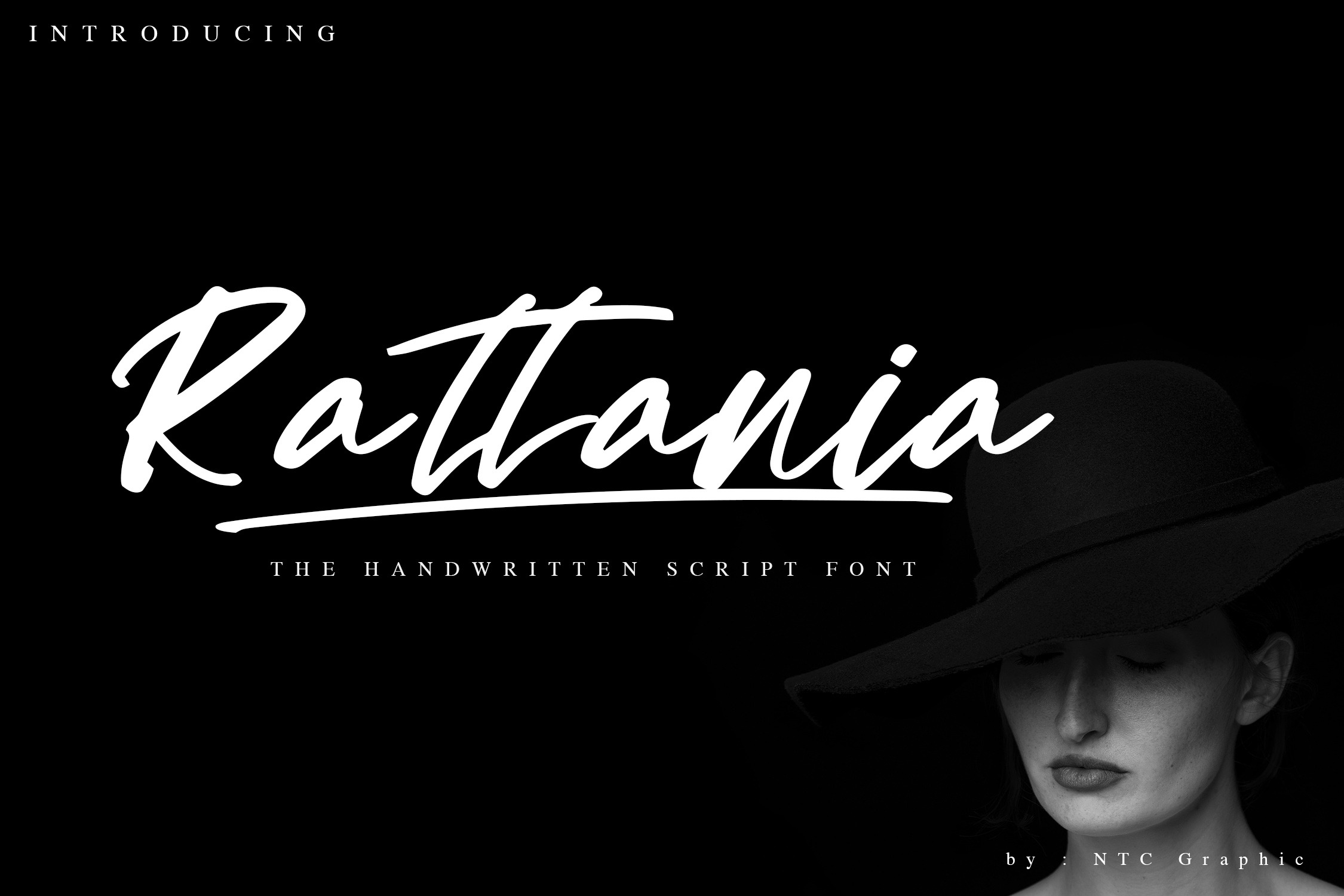
Rattania - Handwritten Script Font
Rattania is a script font with handwritten style. Is a font style that is made as if it were handwritten. Can be applied to support the graphic appearance of the product to be more attractive and unique. This font is suitable for making previews and covers, logo designs, shirt designs and other graphic needs. Made with hand scratches directly and then processed into font processing software.
Rattania font with uppercase characters A-Z, lowercase characters a-z, punctuation, Numerical character, swashes, and ligature characters that enhance this font shape.
-Ligature
-Swashes